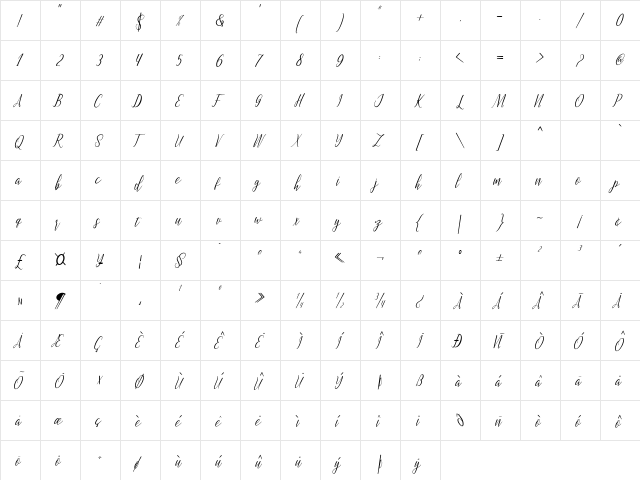
Montalia Script Regular
Design Context for Montalia Script Typeface
Montalia Script flows with the natural rhythm of handwritten lettering, making it ideal for designs that call for warmth and personal expression.
Font Pairing: Combine Montalia Script with a simple geometric sans for maximum contrast — the tension between flowing curves and clean structure is a classic typographic pairing.
Pro Tip: Pair Montalia Script with a clean sans-serif for supporting text. The contrast between fluid script and geometric structure creates an elegant typographic hierarchy.